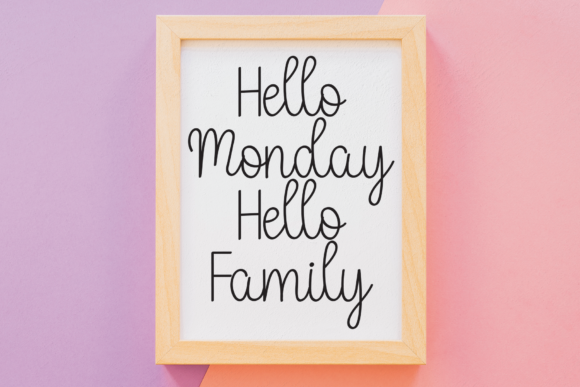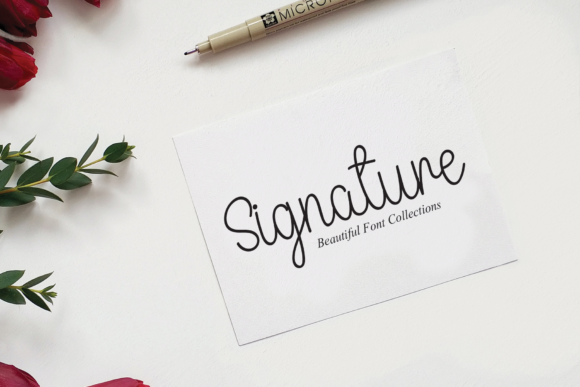
Farmhouse Handmade Font
db-ku.com - Script & Handwritten -- Farmhouse Handmade is an exquisite handwritten font, masterfully designed to become a true favorite. It maintains its classy calligraphic influences while feeling contemporary and fresh. Fall in love with it and bring your projects to the highest levels!